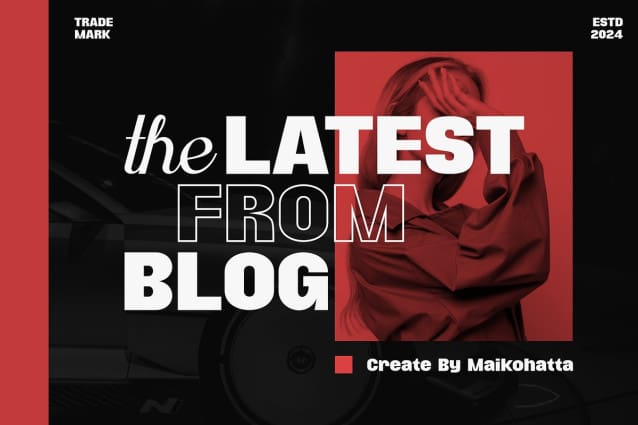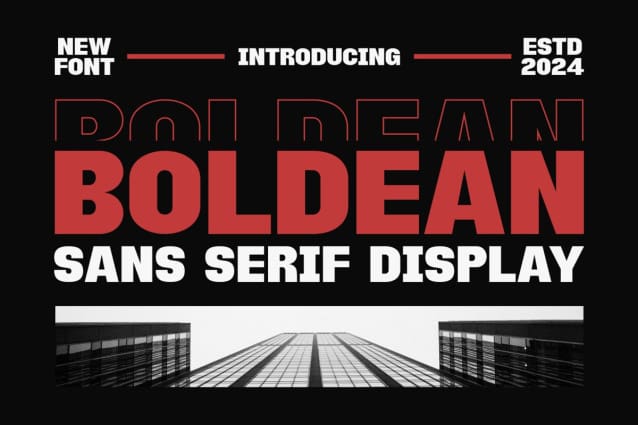
Boldean Font
Boldean Font – Sans Serif Display is a bold and authentic display font. The font is suitable for any branding project like logo, Template Design, esport, and many more. outstanding in a wide range of contexts.